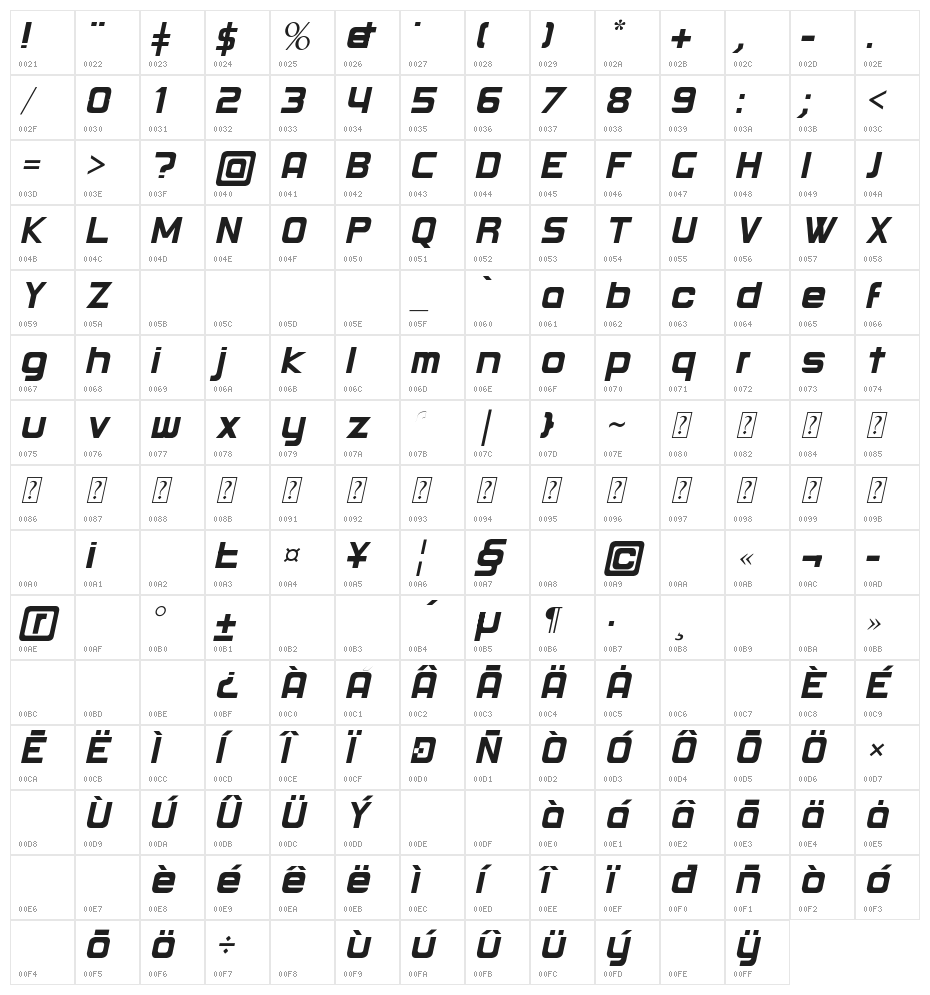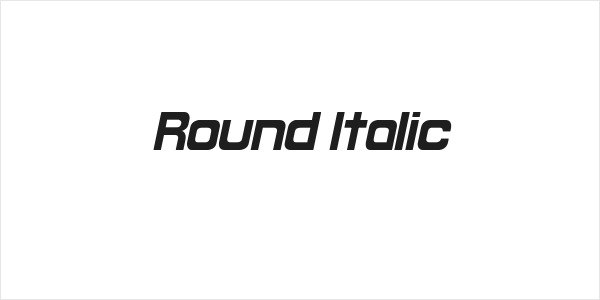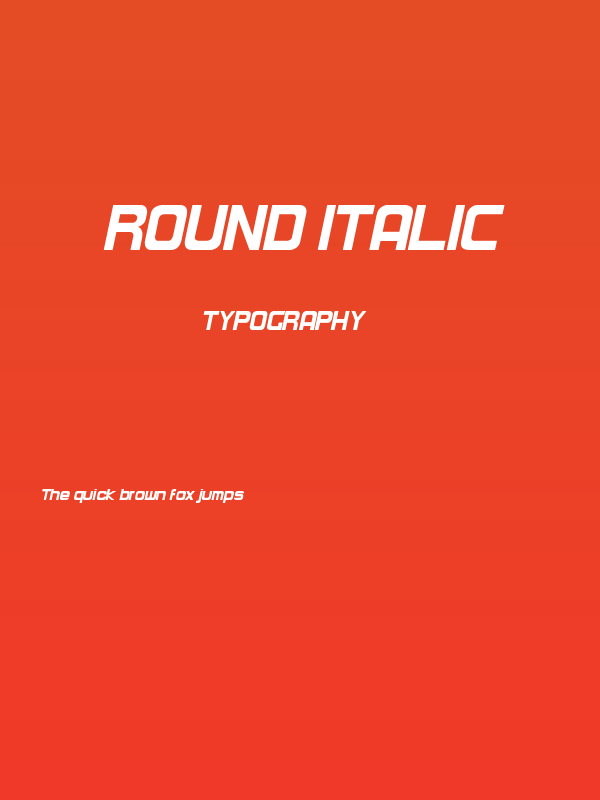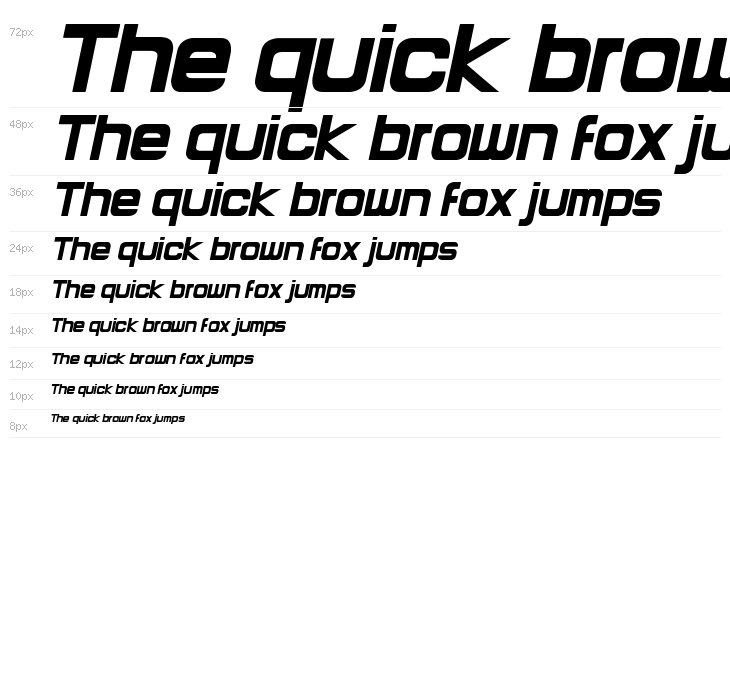
Round Italic Font
Round Italic Description
This font features a modern, italicized style with rounded edges and a sleek, streamlined appearance. The characters are bold and slightly condensed, giving them a strong presence while maintaining readability. The uppercase and lowercase letters are consistent in style, with smooth curves and a slight forward slant that adds a sense of motion and dynamism. The numbers and special characters follow the same design principles, ensuring a cohesive look across all glyphs. The font's overall aesthetic is contemporary and versatile, suitable for a variety of design applications.
| Use Case | Headlines, Logos, Digital Media |
| Proposed Projects | Ideal for branding, advertising, digital media, and modern web design projects. |